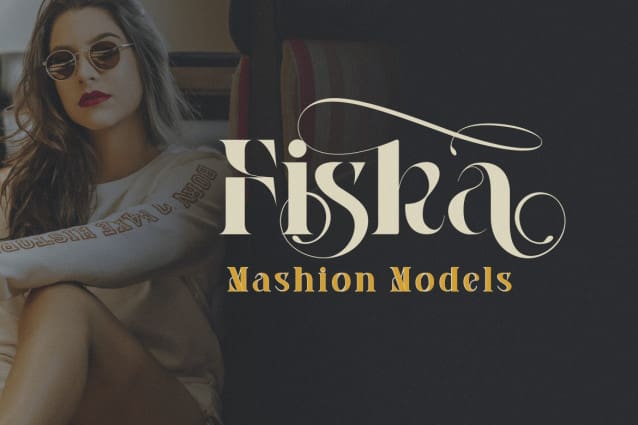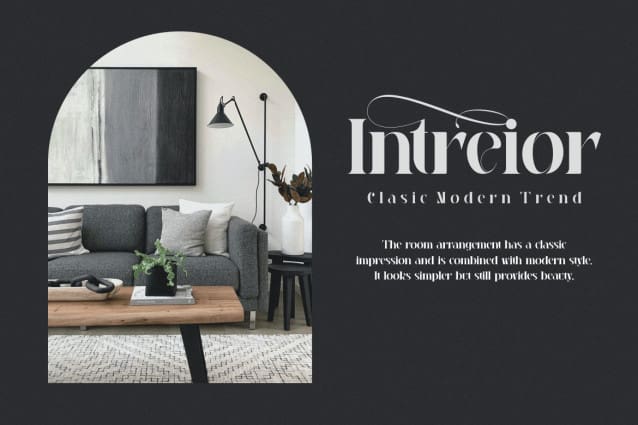
Fiska Font
Fiska Font – Elegant Serif Display is a modern and authentic font. Perfect for professional needs and product branding, this font is suitable for all branding projects such as quotes, logos, blog headers, posters, ribbons, letters, invitations, stationery, etc. Designed to be versatile and flexible, it can be used on a variety of projects and media. Extraordinary in a variety of contexts